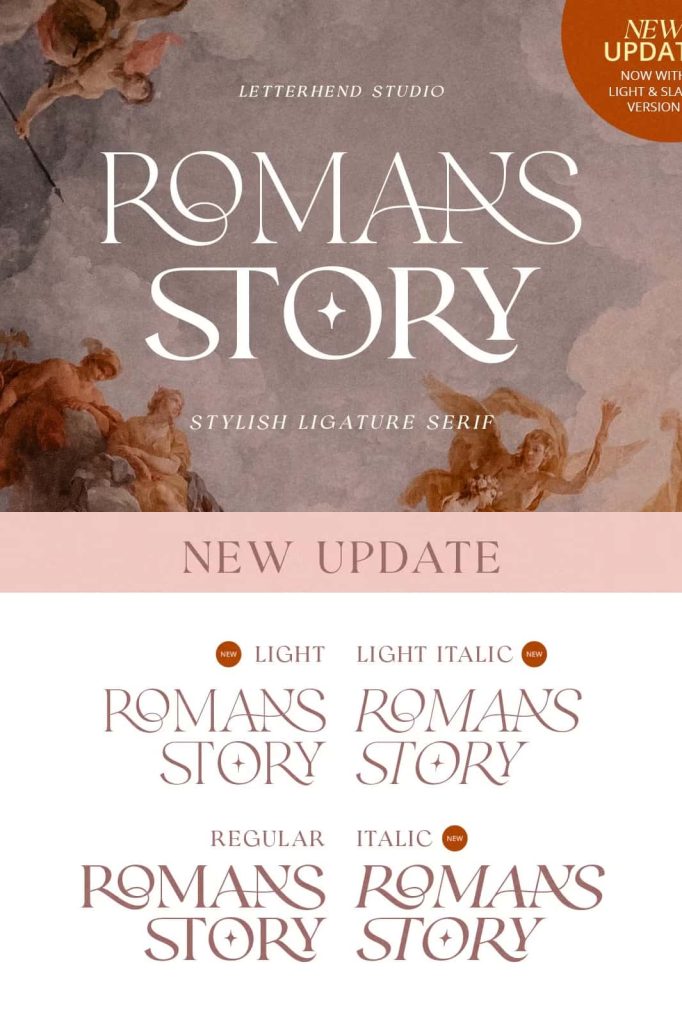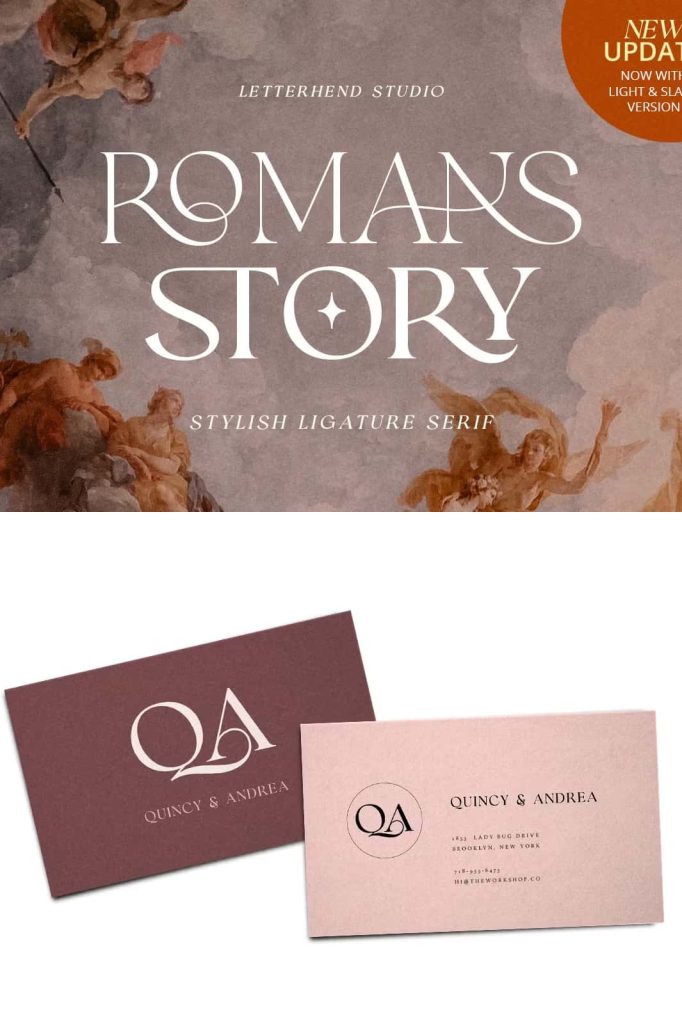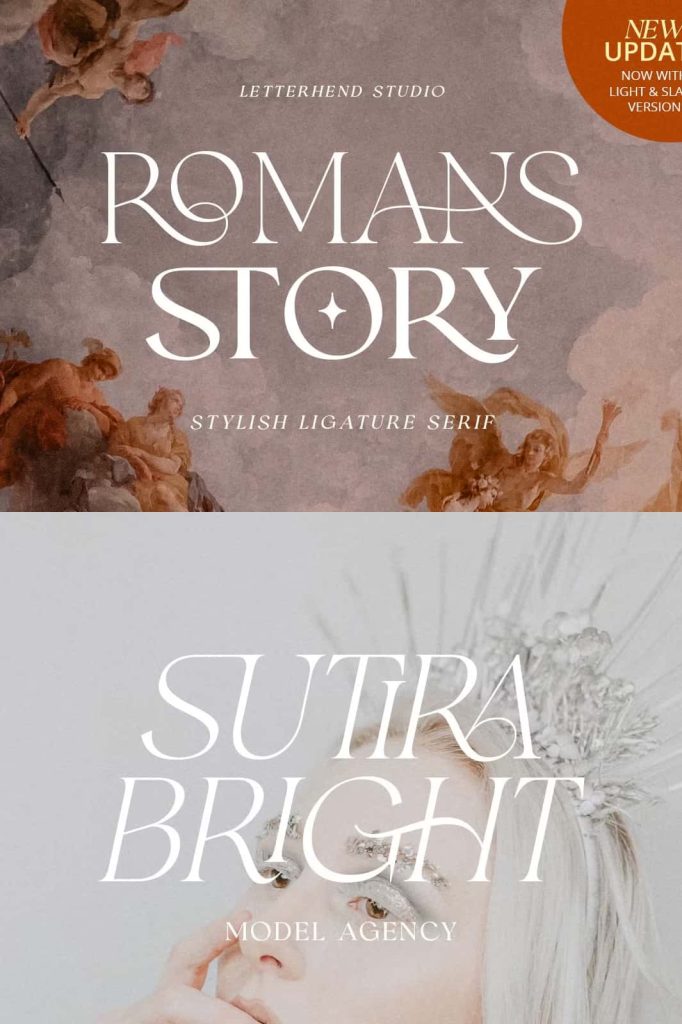
UPDATE! Romans Story Ligature Serif
Romans Story Font – A Sophisticated Ligature Serif for Elegant and Timeless Design
Romans Story Font is a refined serif typeface designed with an eye for detail and a passion for elegance. This sophisticated ligature serif captures the essence of luxury and timeless design, making it an ideal choice for brands and creatives who value both artistry and professionalism. Every curve, stroke, and serif has been carefully crafted to deliver a premium and luxurious feel, ensuring that your typography commands attention and exudes confidence.
A Modern Serif with Classic Elegance
Romans Story Font blends traditional serif elegance with modern sophistication. Inspired by the harmony of classical typography, this font elevates every design it touches—whether it’s a high-end brand identity, an editorial layout, or elegant packaging. Its distinctive ligatures add fluidity and creativity to letterforms, turning ordinary text into captivating works of art.
The charm of Romans Story lies in its ability to balance beauty and readability. Each letter is drawn with precision, creating an impression of fine craftsmanship that feels luxurious yet accessible. The result is a typeface that combines heritage and innovation, perfectly suited for today’s creative landscape.
Elegant Ligatures That Make a Statement
What sets Romans Story Font apart from conventional serif fonts is its exquisite collection of ligatures. These thoughtful connections between letters add a graceful rhythm to your text, creating smooth transitions and an organic flow that feels natural and elegant. Each ligature is meticulously designed to enhance visual harmony while maintaining balance and legibility.
These ligatures transform typography into a form of artistic expression, giving designers the flexibility to create unique letter combinations that feel customized and exclusive. Whether you’re designing a luxury logo, a magazine headline, or sophisticated invitations, Romans Story’s ligatures elevate your text into something truly remarkable.
Designed for Luxury Branding and Editorial Excellence
Romans Story Font is ideal for high-end branding projects, where elegance and exclusivity are essential. It evokes a sense of refinement that perfectly complements luxury products, fashion houses, boutique labels, and editorial publications. Its polished structure and delicate details ensure a professional appearance across all media, from printed materials to digital displays.
This typeface shines in contexts that require visual authority and timeless appeal. Its versatility allows it to adapt seamlessly to various design applications—whether it’s a minimal logo, a magazine cover, a book title, or a premium website interface. The balanced letterforms ensure clarity and sophistication even at smaller sizes, making Romans Story both practical and beautiful.
Perfect Applications for Romans Story Font
• Luxury Branding: Perfect for crafting elegant logos, wordmarks, and monograms that express sophistication and exclusivity.
• Editorial Design: Enhance magazines, books, and digital publications with refined typographic structure and charm.
• Product Packaging: Elevate high-end products like perfumes, jewelry, and cosmetics with a font that reflects quality and style.
• Event Invitations: Add a luxurious and timeless touch to wedding invitations and formal event stationery.
• Website and Social Media: Create refined digital experiences with clean, striking typography that captures attention.
Built with Precision and Passion
Every element of Romans Story Font has been designed with purpose and care. The font features precise proportions, balanced contrast, and harmonious spacing to ensure that every word looks cohesive and elegant. Its refined serifs add strength and personality, while its smooth curves create a sense of flow and sophistication.
This thoughtful design approach makes Romans Story not just a typeface, but a complete typographic experience. It allows designers to communicate elegance, authority, and confidence effortlessly, without sacrificing usability or readability. Whether you’re working on printed projects or digital media, Romans Story adapts beautifully to any environment.
Key Features of Romans Story Font
• Elegant Ligatures: Unique connections between characters that add sophistication and style.
• High-End Serif Design: Inspired by classic typography, refined for modern luxury design.
• Exceptional Readability: Perfect balance between artistic detail and legibility.
• Versatile Applications: Ideal for branding, editorials, invitations, and digital design.
• Premium Aesthetic: Evokes luxury, confidence, and timeless elegance.
Why Designers Choose Romans Story Font
Designers and creative professionals are drawn to Romans Story Font for its ability to transform ordinary layouts into captivating compositions. Its modern yet timeless appeal makes it an excellent foundation for sophisticated design systems. The ligatures provide a touch of artistry, while the structure ensures clarity and strength, making every project feel refined and intentional.
Whether you’re a designer crafting a high-end brand or an artist seeking a typeface that communicates grace and confidence, Romans Story Font delivers a typographic experience that is as expressive as it is functional. It’s a true celebration of design craftsmanship—refined, luxurious, and undeniably unforgettable.